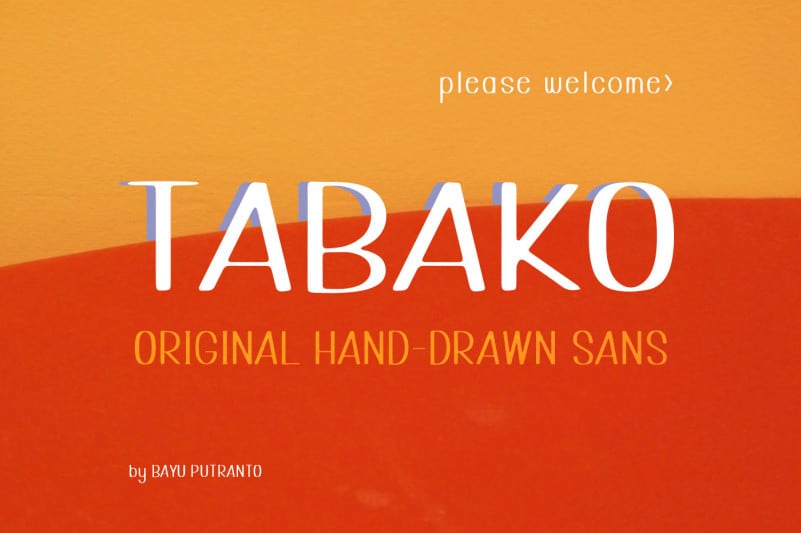
Tabako Free Sans Font is a Bold & Handdrawn sans serif typeface, they have rough and vintage character. Perfect for logos, badges, typography and any vintage design needs. TABAKO is a new hand-drawn sans font by Bayu Putranto. This font family inspired by an urban style and designed with a modern look and feel. Perfect for any branding, magazine, posters, logos, titles, blogs, and more. It comes with a full set of uppercase, lowercase, numbers, punctuation and multilingual support.